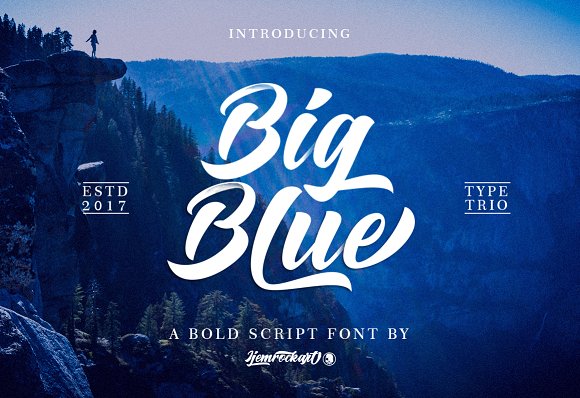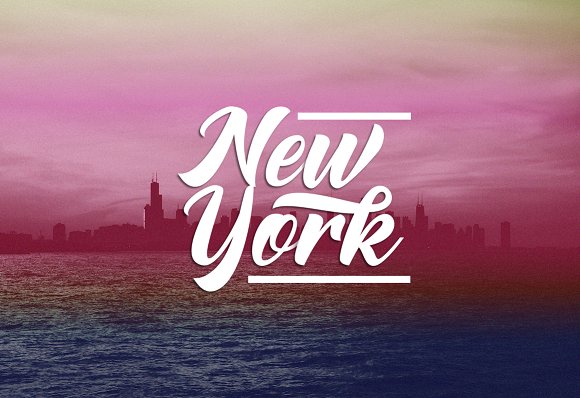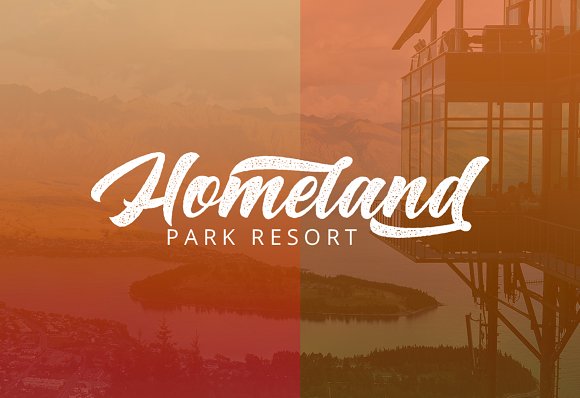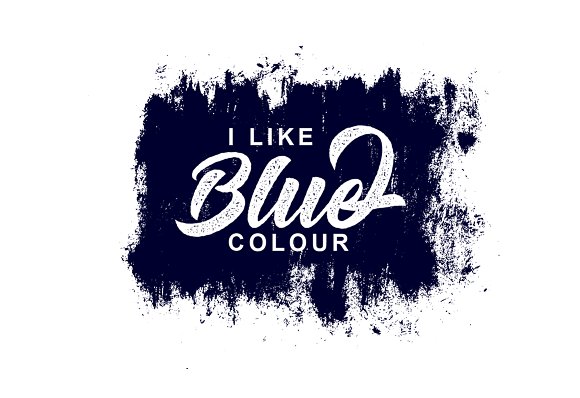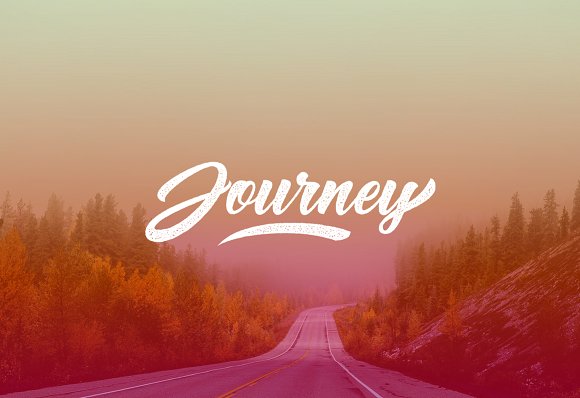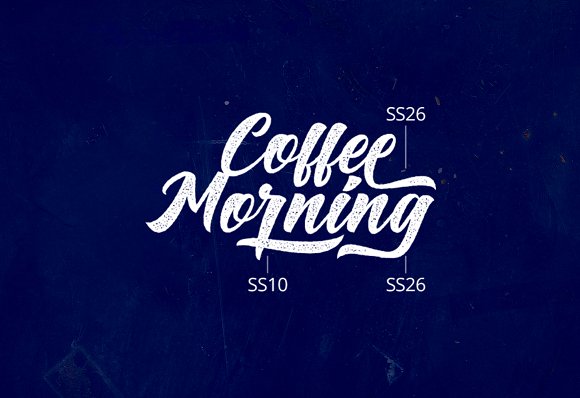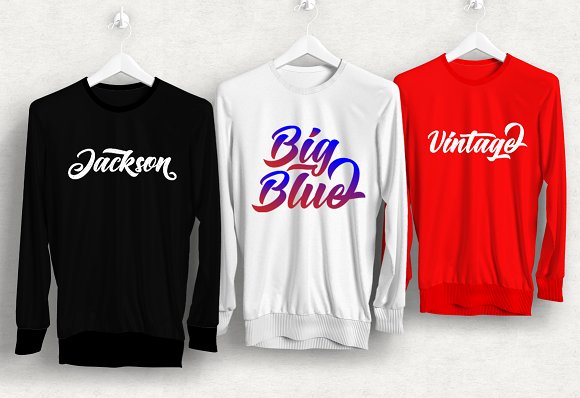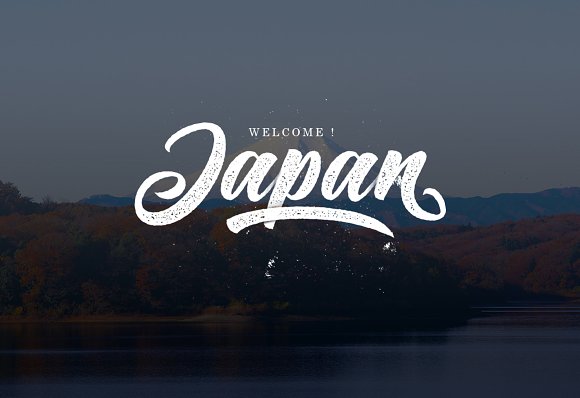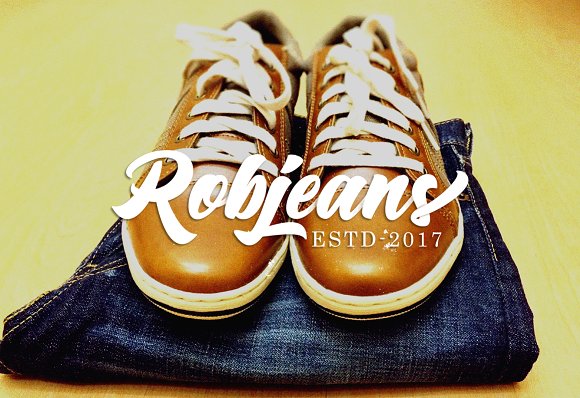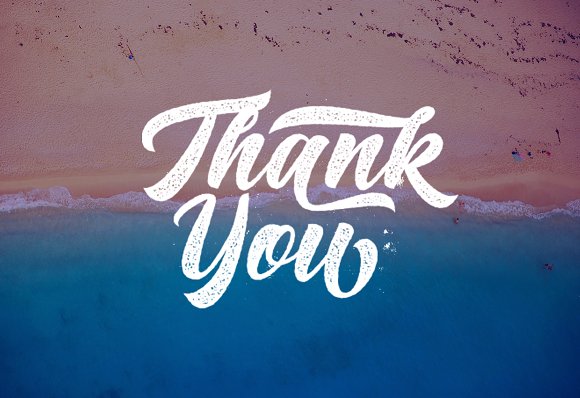
Big Blue Font
About Big Blue Font
Big Blue is a delicately hand-brushed font.
Big Blue comes in 3 unique versions:
Big Blue Script – An elegant clean handwritten script font
Big Blue Bold – Strong play on the script font
Big Blue Rough – The script version featuring a texture of rough imperfections